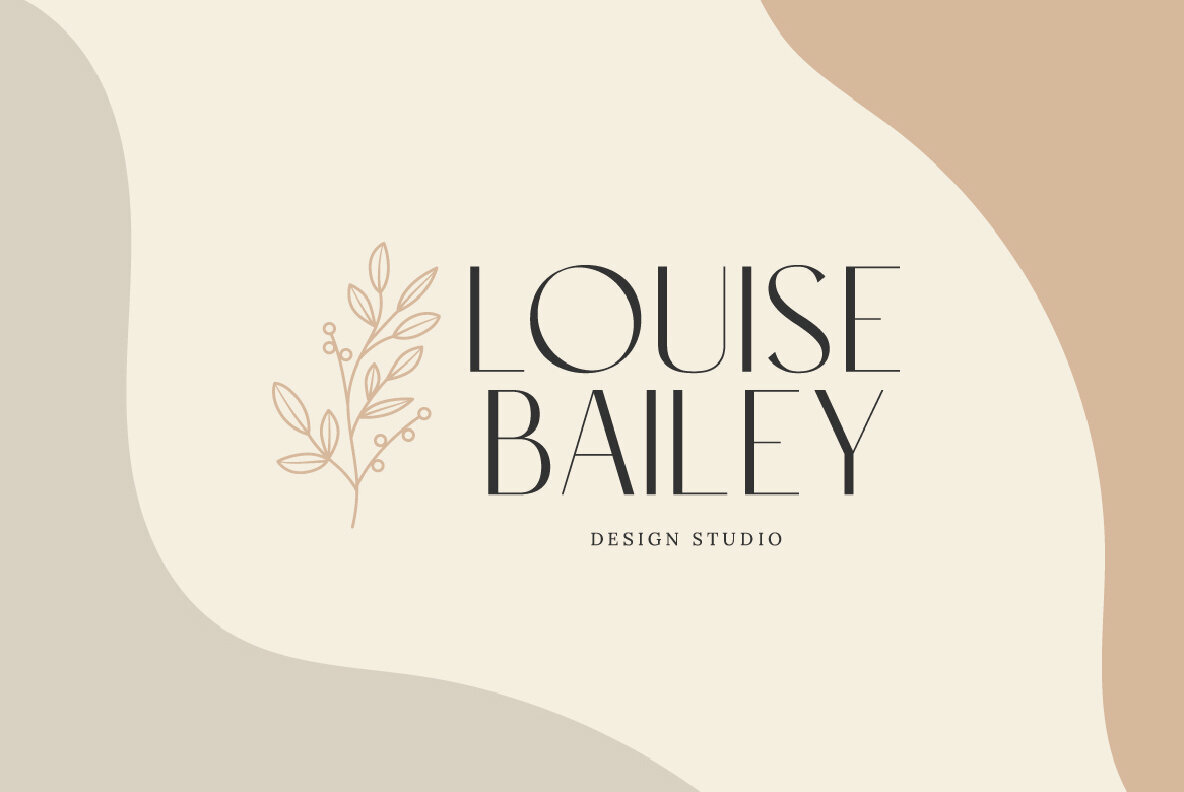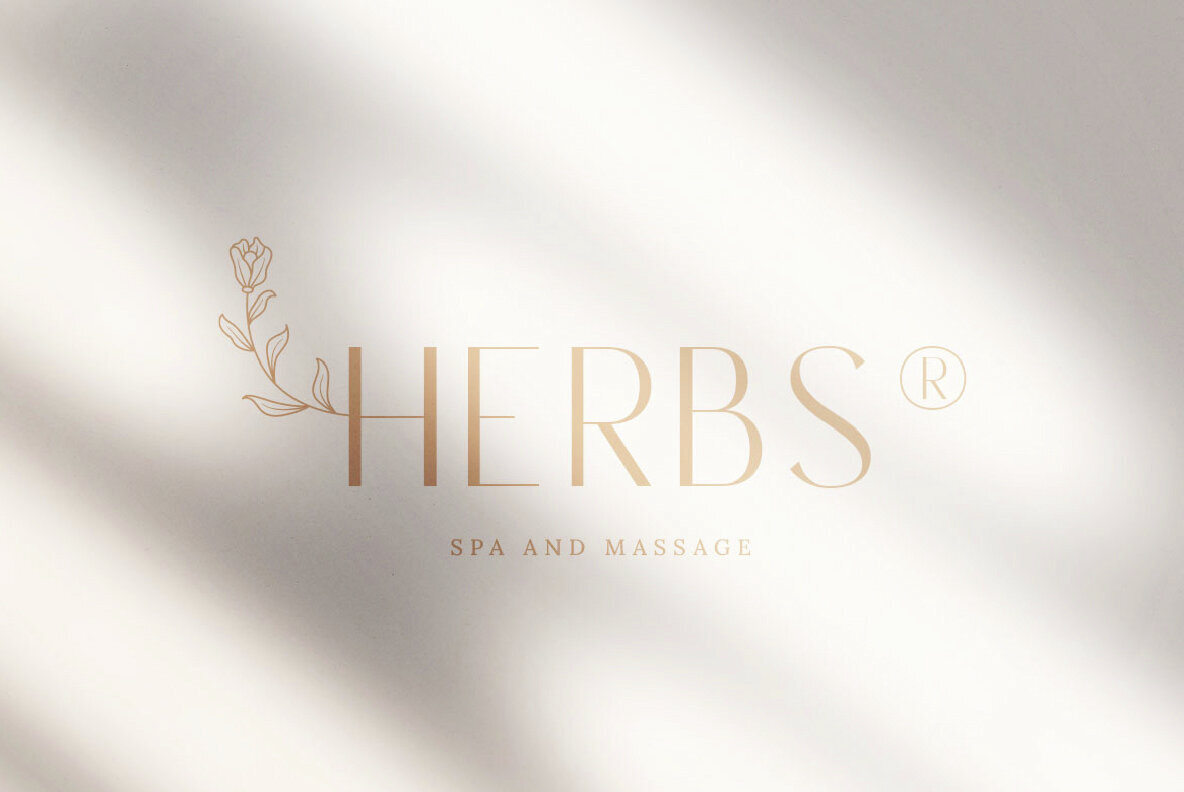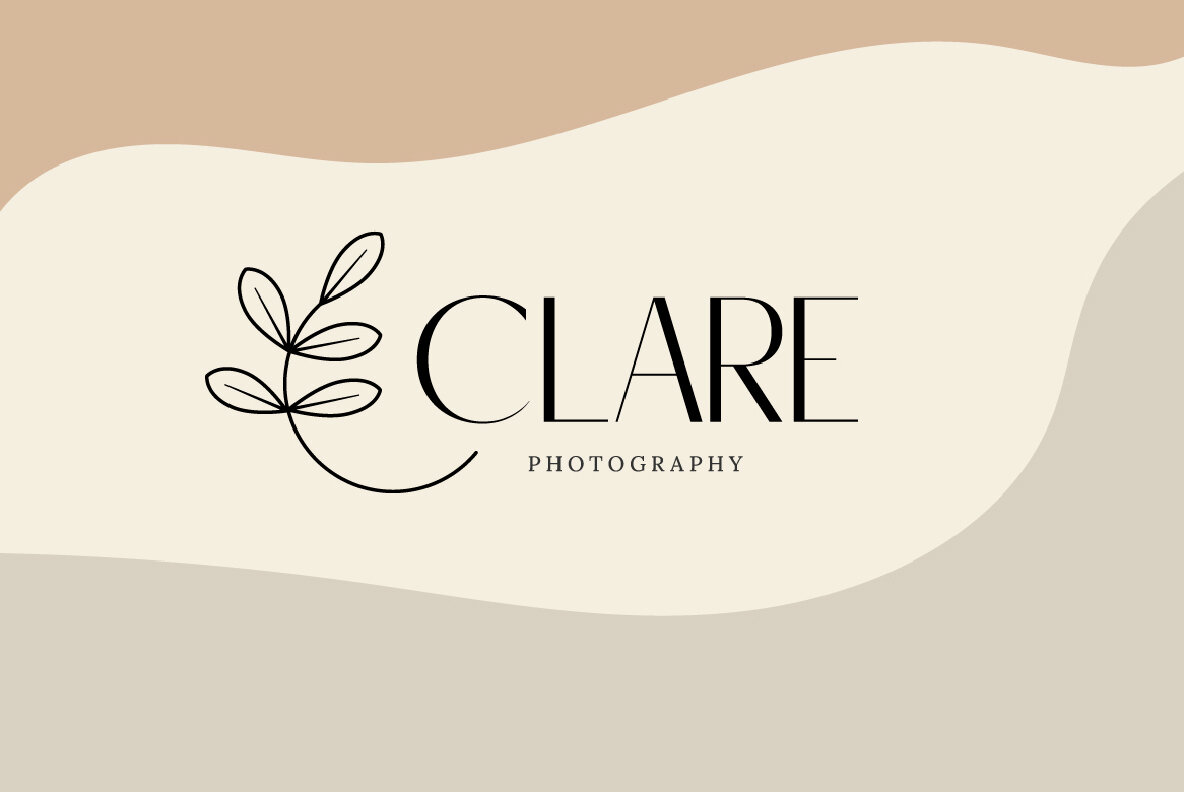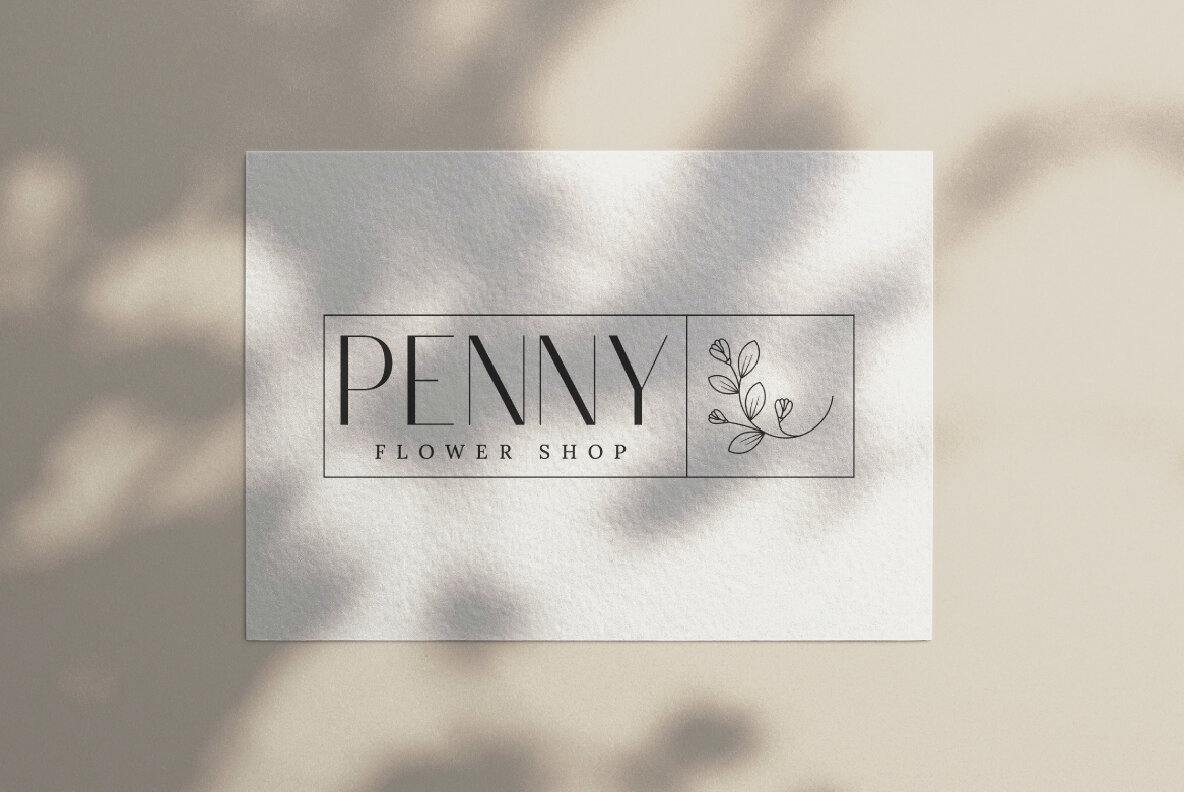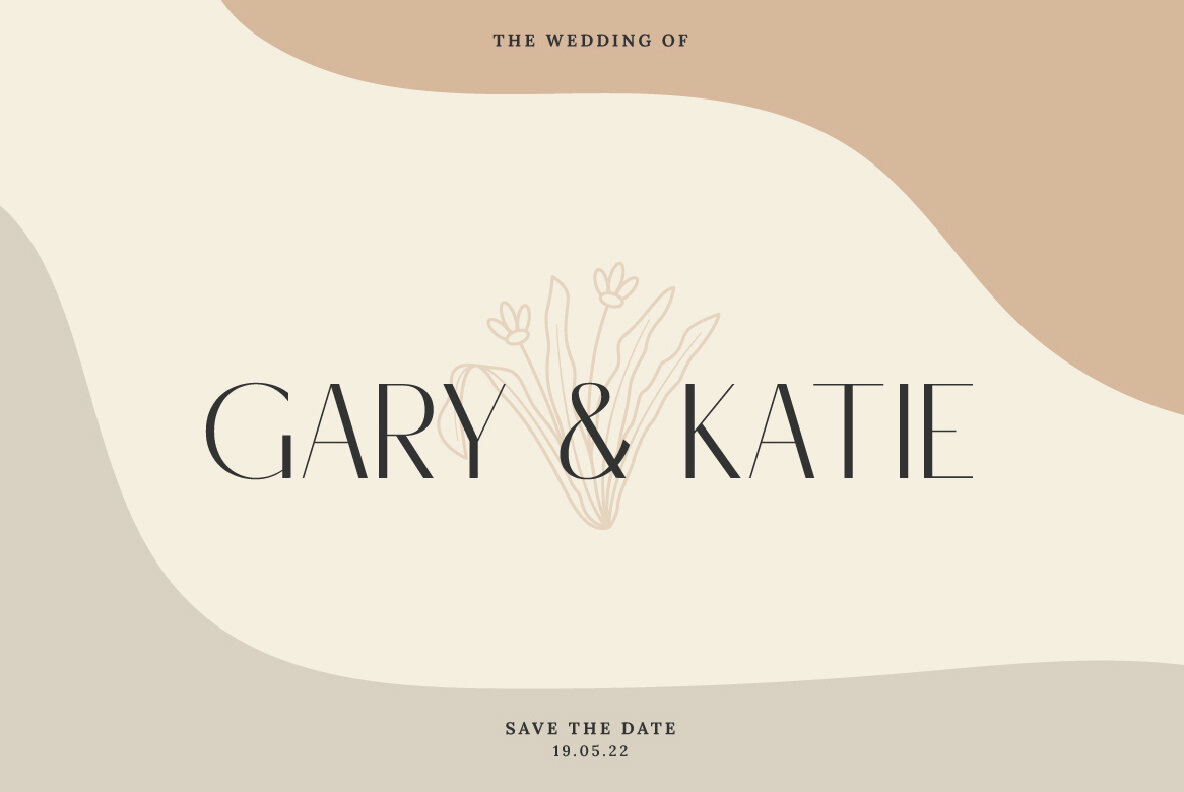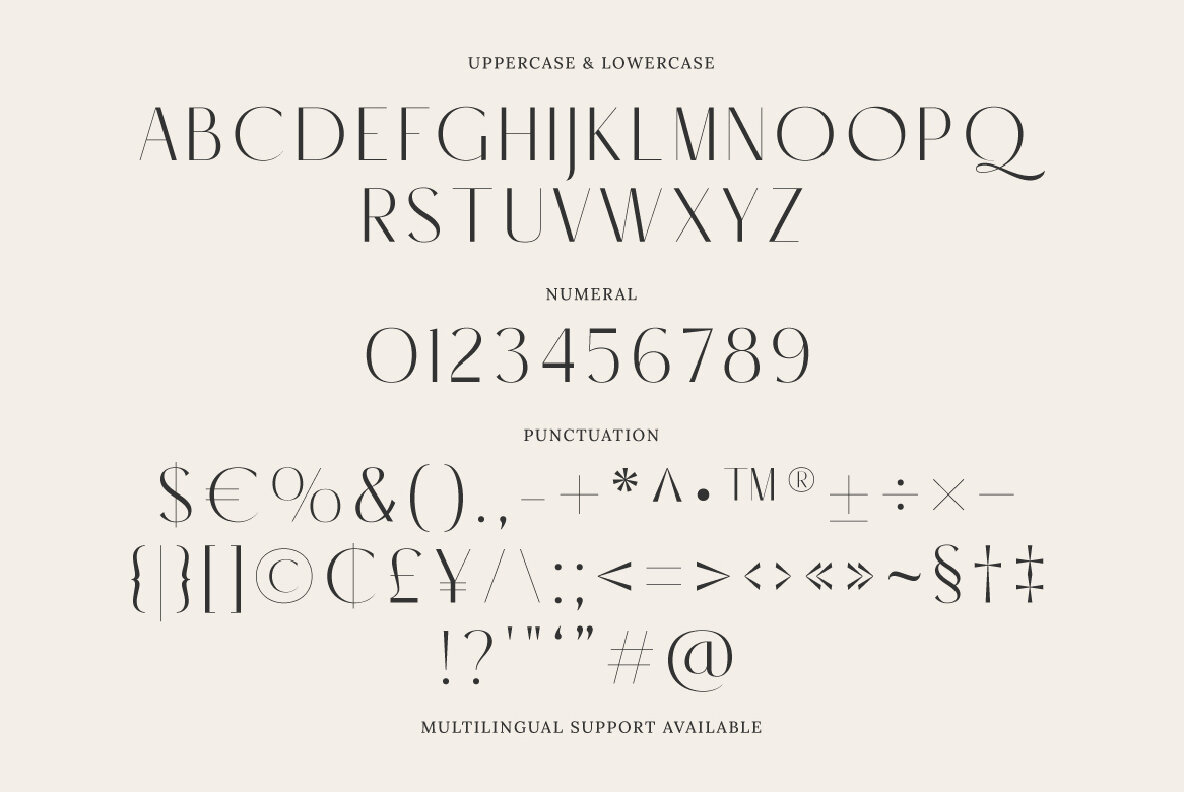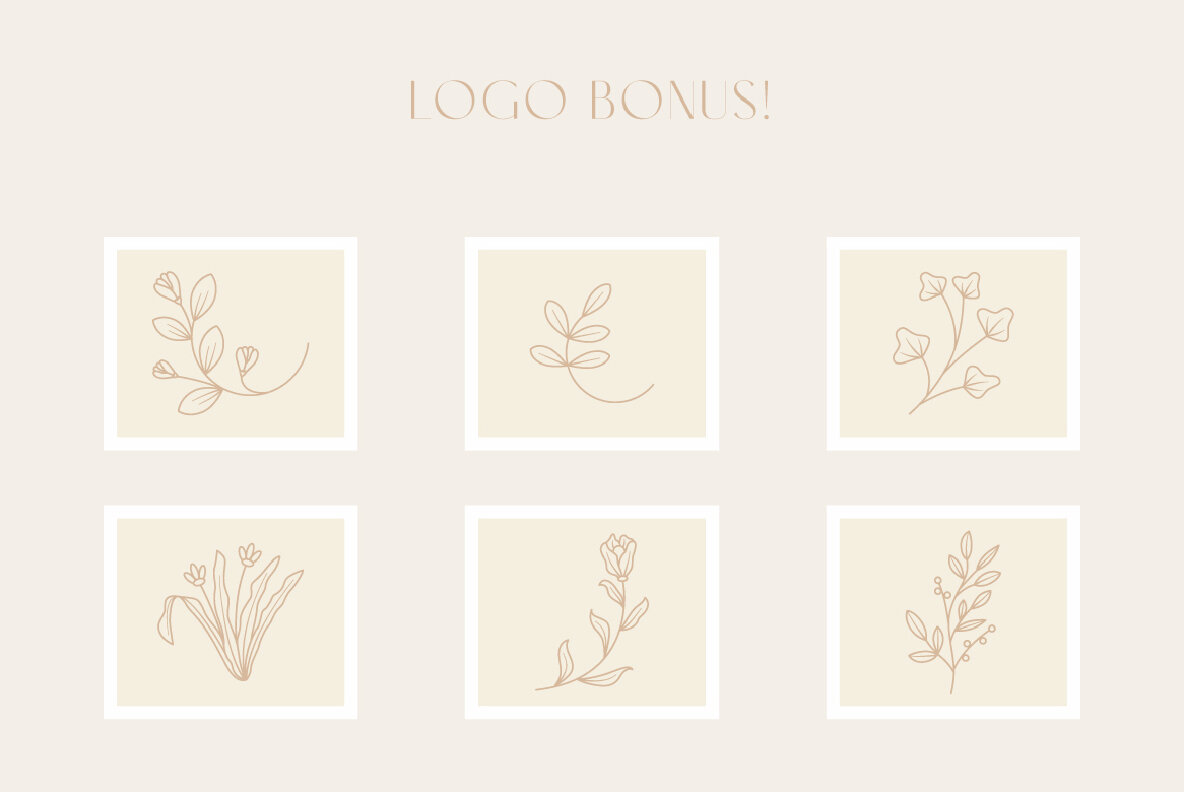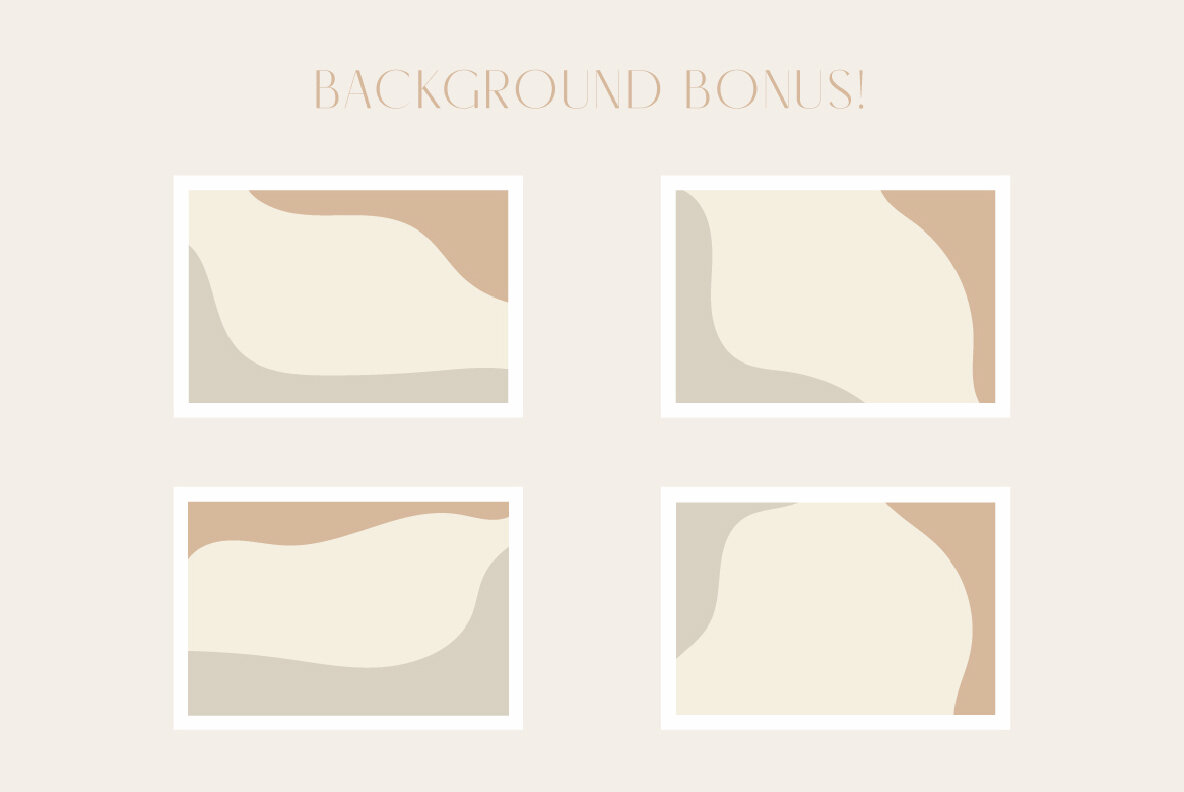
Romance Logic Font
Introducing Romance Logic by Prio Nurokhim Aji - a sans serif typeface with a simple yet classy feel. Unique letter widths in C, D, G, O, and Q add distinctiveness. Ideal for branding, logos, and creative posts.
- Uppercase
- Lowercase
- Numerals
- Punctuation
- Multilingual support